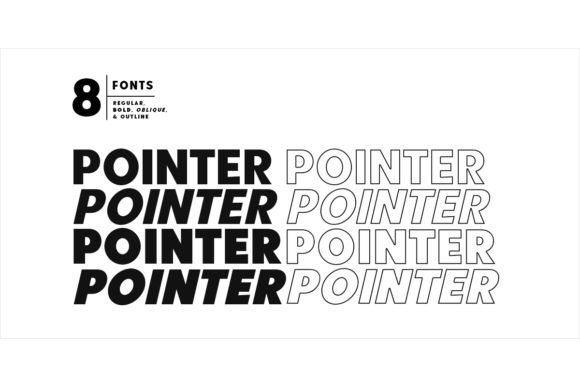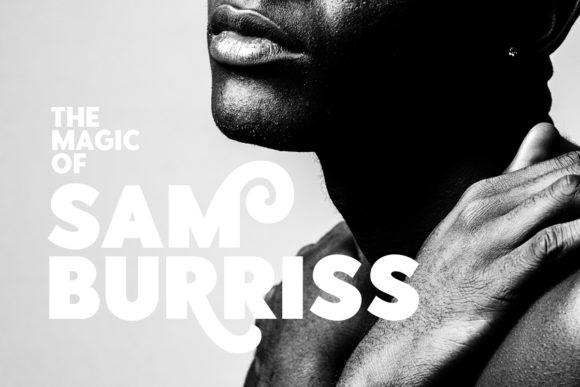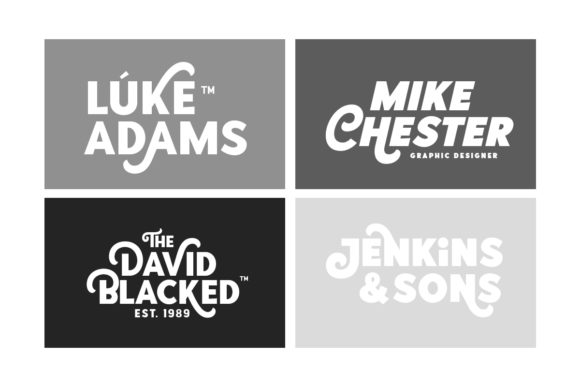
Point Panther Font: A Bold Sans Serif for Logo Design & Headlines!
About the Point Panther Font
Introducing the Point Panther Font, a beautifully crafted typeface designed to elevate your creative projects. Point Panther is a unique sans serif font. It comes in 8 amazing styles that you can combine to get an even better look in your designs!
Point Panther’s bold, geometric forms make it ideal for headlines, logos, and short impactful phrases in branding materials and posters. Its strong personality also lends itself well to packaging design, particularly for products projecting a modern or edgy feel. However, its condensed letterforms are less suitable for body text or long paragraphs, and its weight might prove overwhelming in UI applications.
Consider pairing Point Panther with a clean, neutral sans-serif like Lato for body copy to balance its strong presence, or a classic serif like Garamond for a sophisticated contrast. For a more playful feel, a rounded sans-serif such as Open Sans could work well, while a script font like Pacifico adds a touch of elegance when used sparingly.
The overall personality is confident and modern, conveying strength and a forward-thinking approach. It’s best suited for brands aiming for a bold, memorable visual identity.